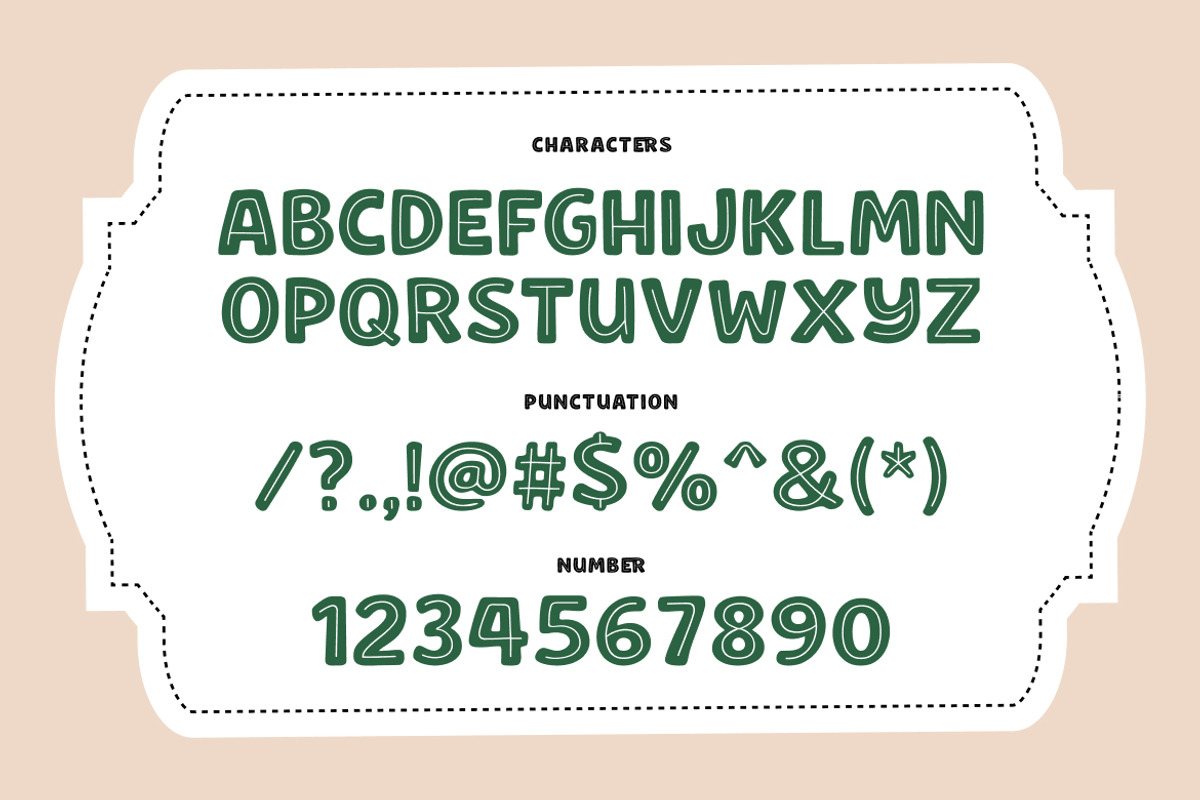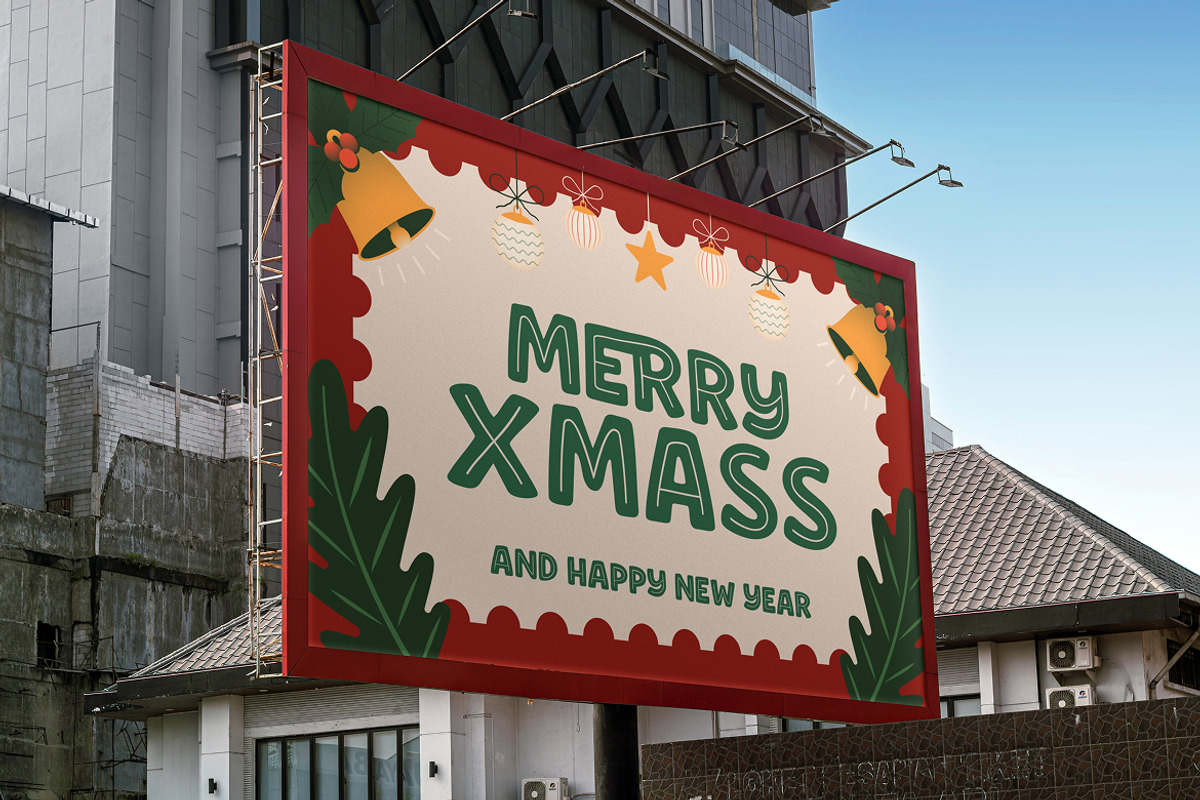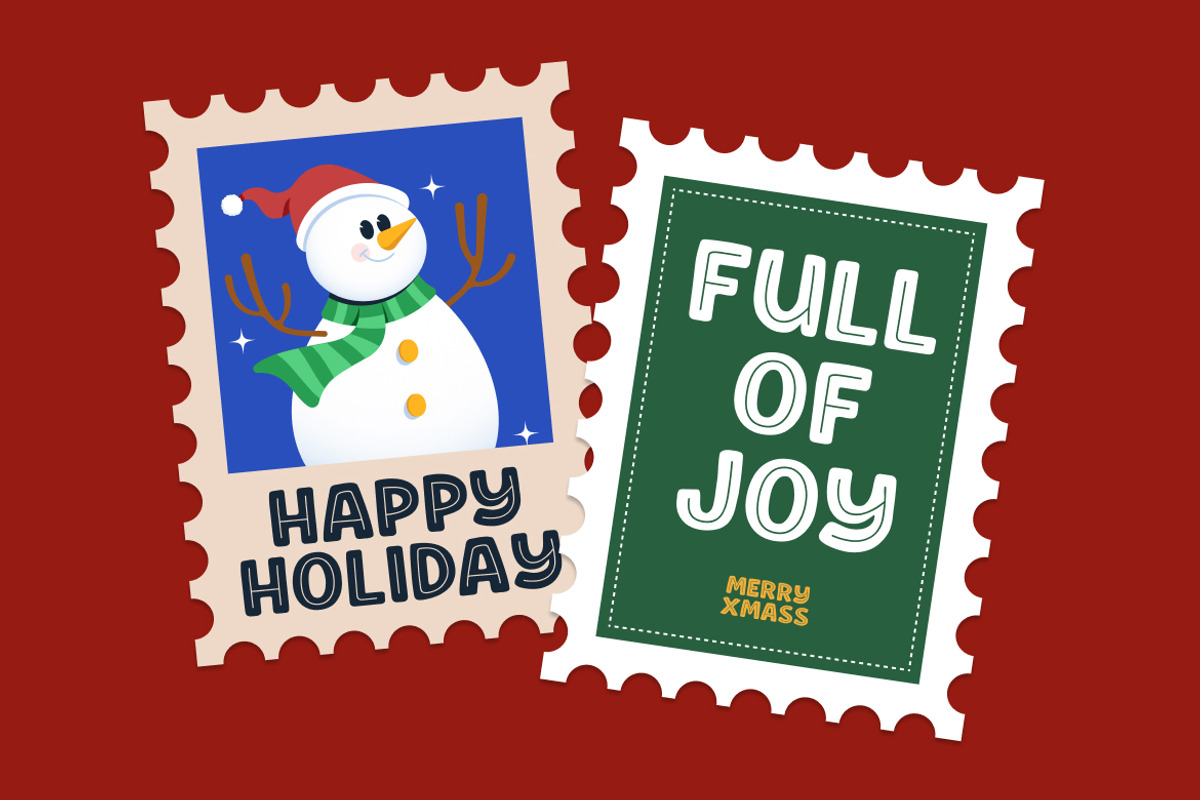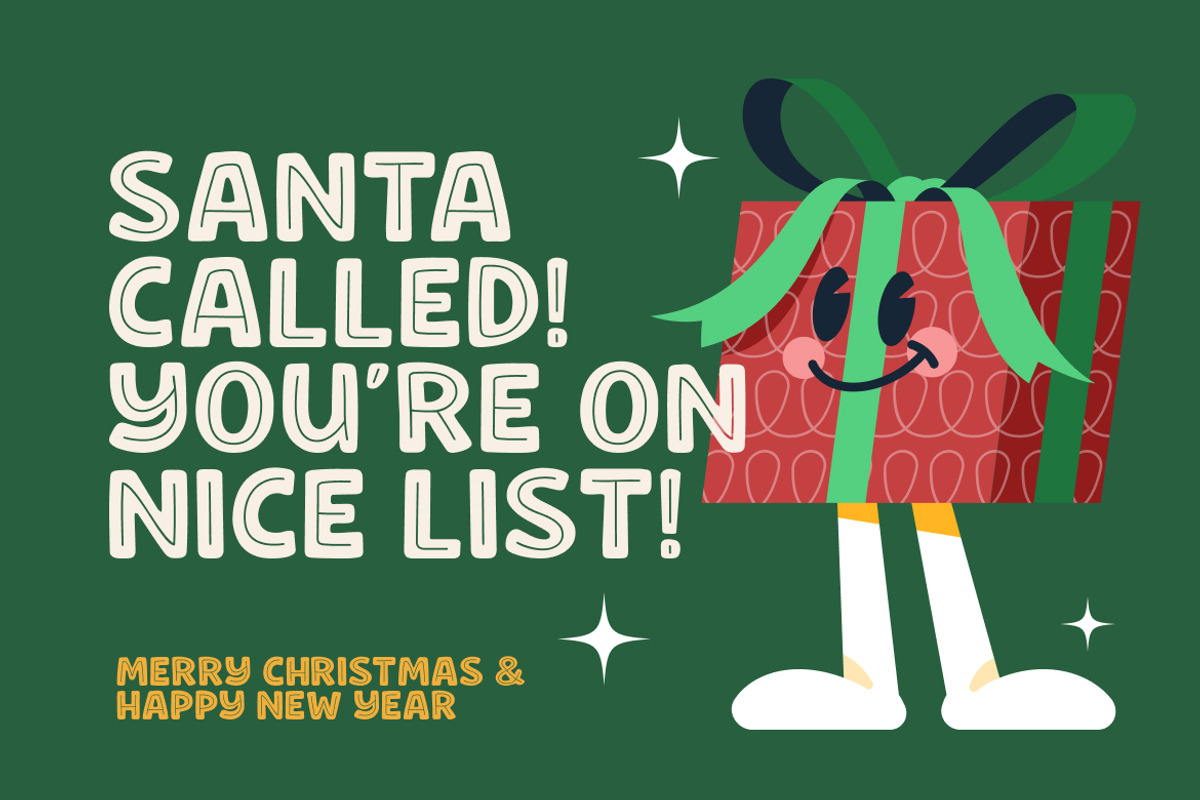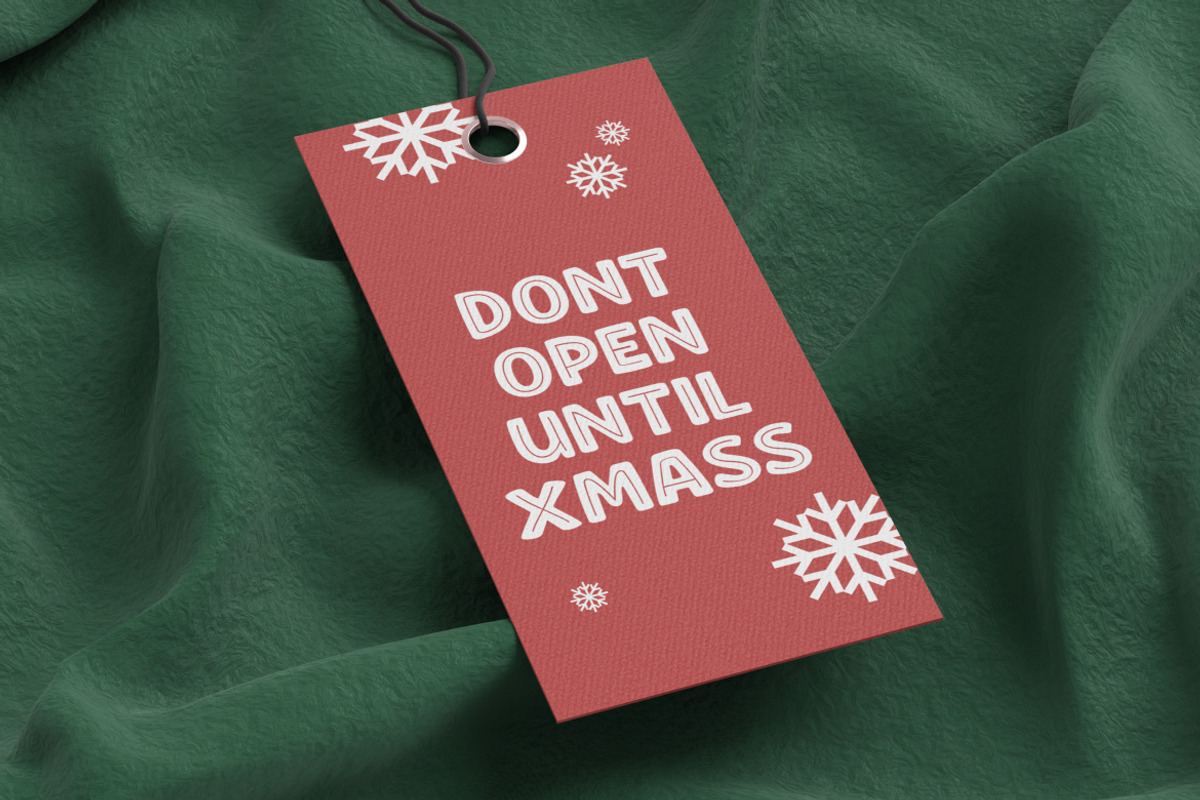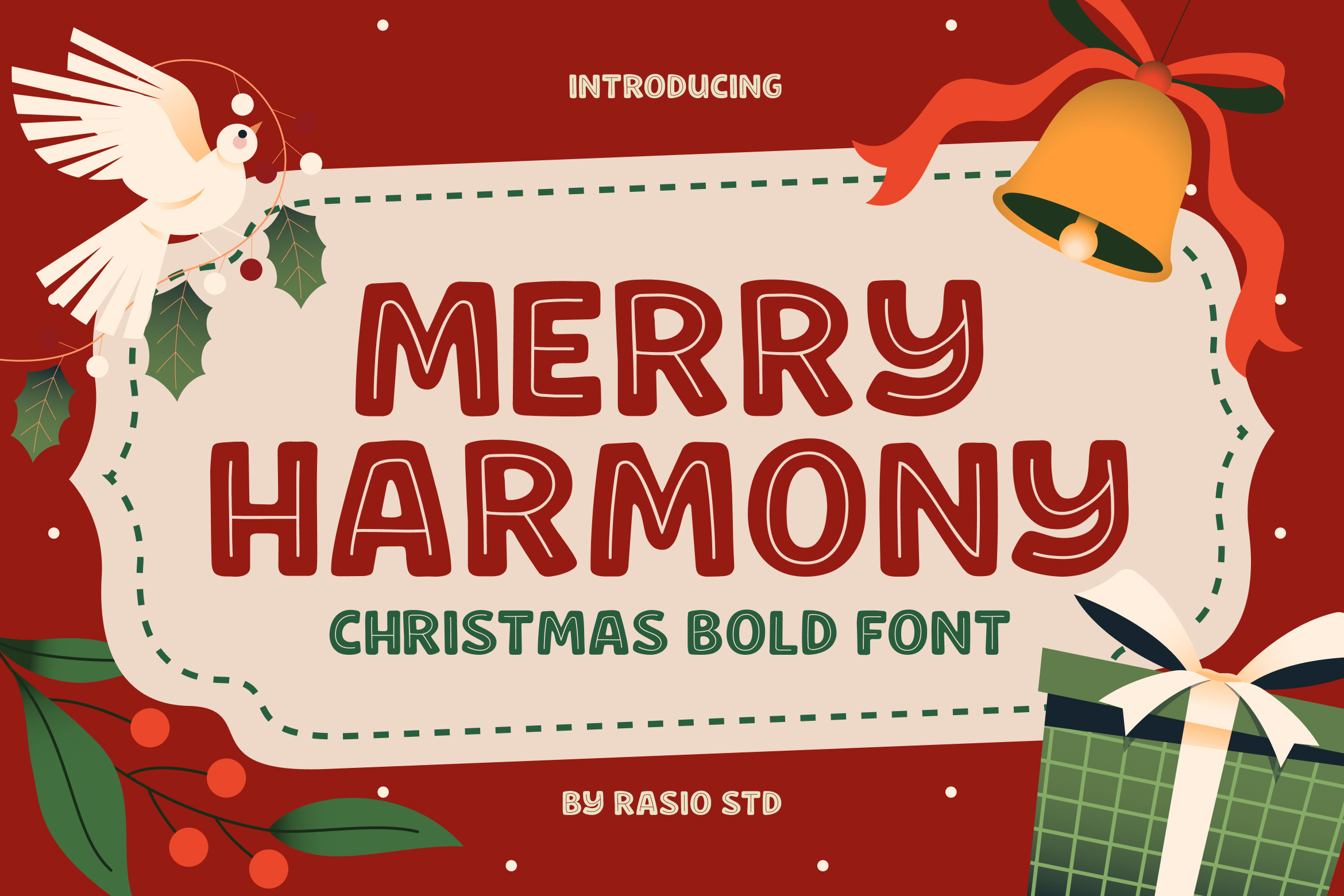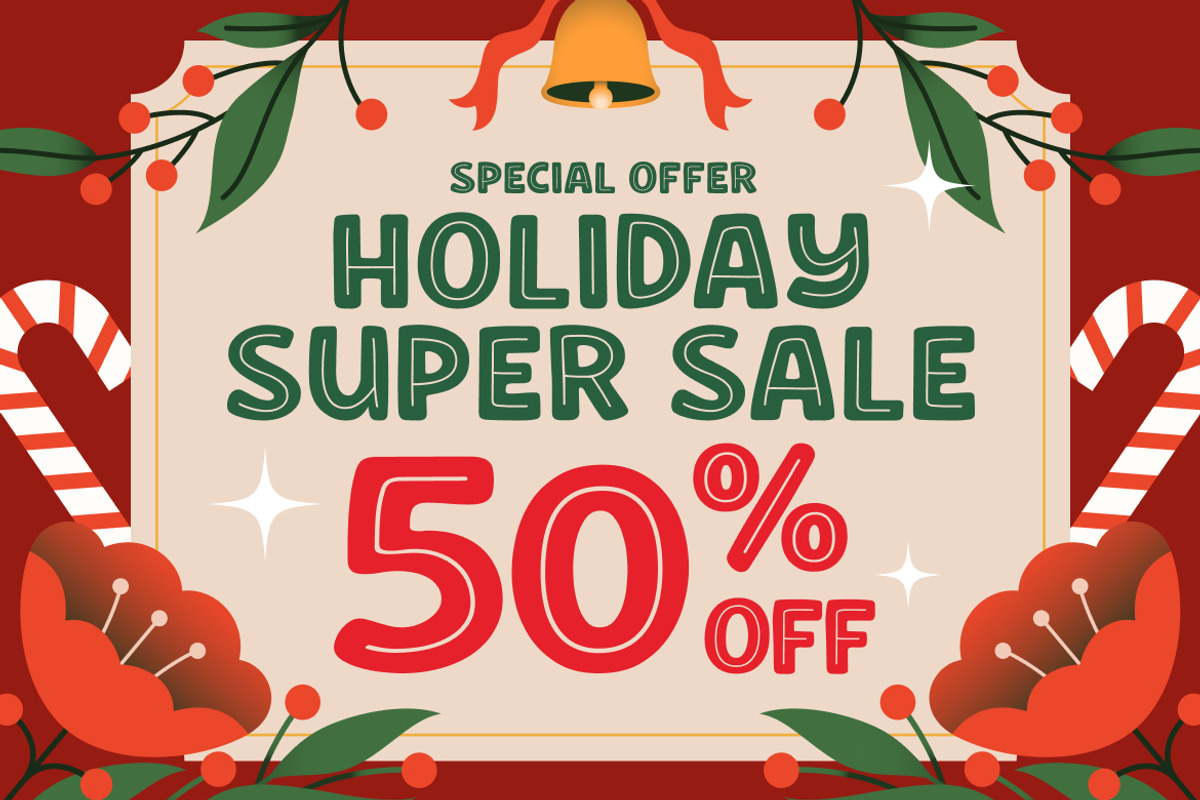
Merry Harmony Christmas Bold Font
Merry Harmony is a cheerful, bold display font designed to bring festive joy to your holiday-themed creations. This Christmas-inspired typeface features playful rounded letterforms with a charming retro touch, perfect for capturing the warmth and excitement of the season. Included in the package are uppercase characters, numbers, punctuation, and decorative alternates, making it versatile for cards, posters, packaging, and more.
Merry Harmony is perfect for seasonal design needs during the Christmas and winter holidays. From greeting cards and event invitations to social media posts and product packaging, this font adds a joyful and bold touch that resonates with festive cheer. Its clean outlines and playful form make it especially suitable for family-friendly designs, kids products, or any cheerful branding.
Design Features Bold display style with christmas energy Rounded strokes and playful curves for a cheerful tone Hand-drawn feel with slight irregularities for character Solid letterforms for strong visibility in headlines and greetings Optimized spacing and proportions for balance and readability
Best Uses This Font for Creative Market Holiday greeting cards, event invitations, and festive banners Seasonal packaging for gifts, cookies, or handmade goods Social media posts, stories, and reels with Christmas themes Christmas-themed merchandise, apparel, or signage DIY printables, labels, and scrapbook elements for winter crafts
Bold, jolly, and full of christmas spirit design with Merry Harmony